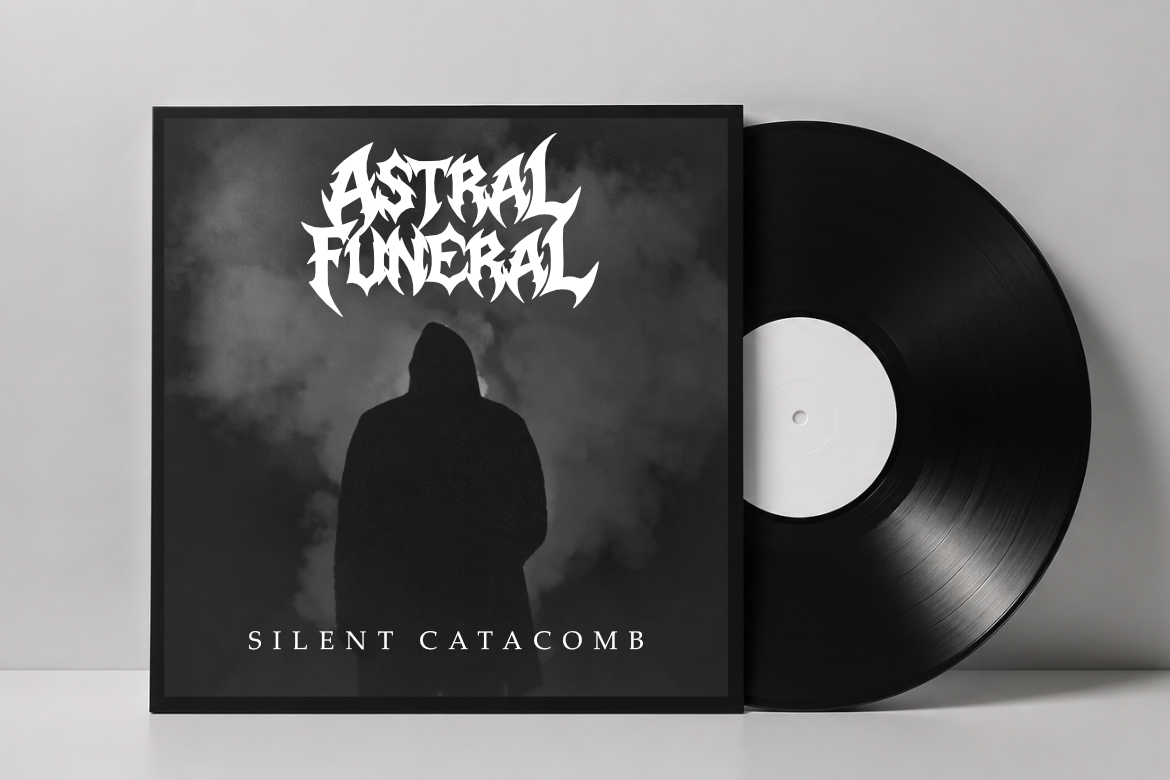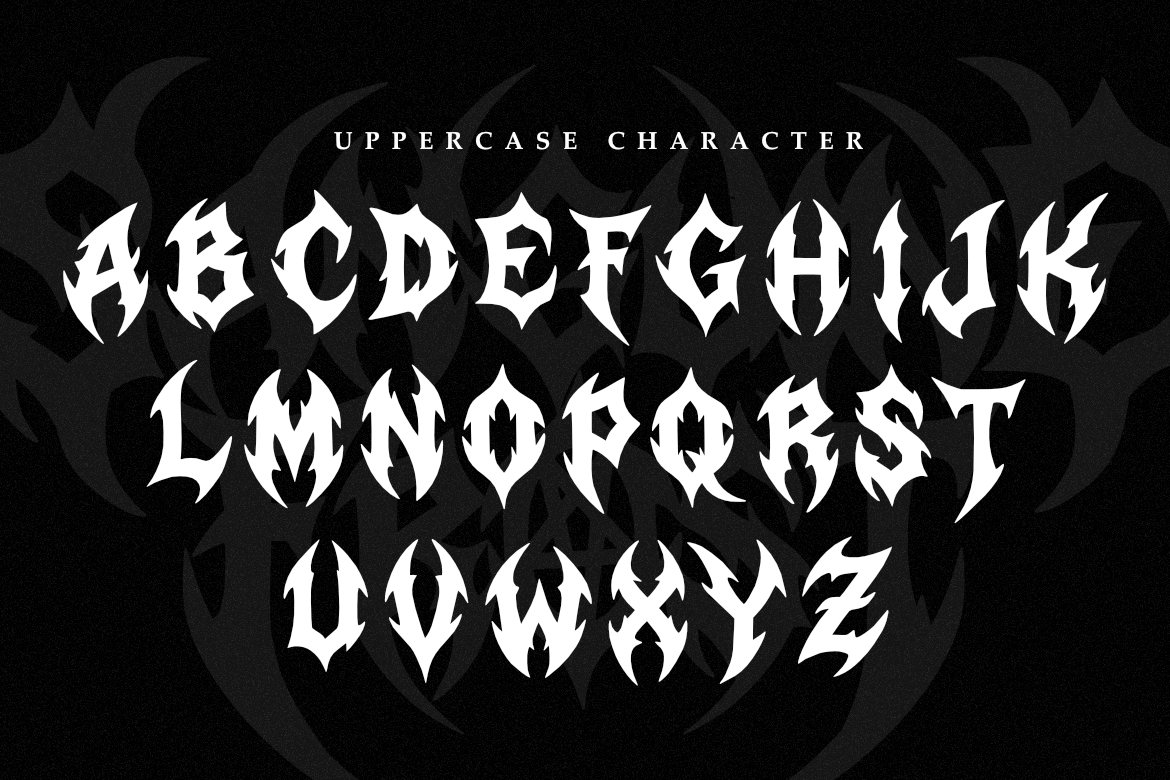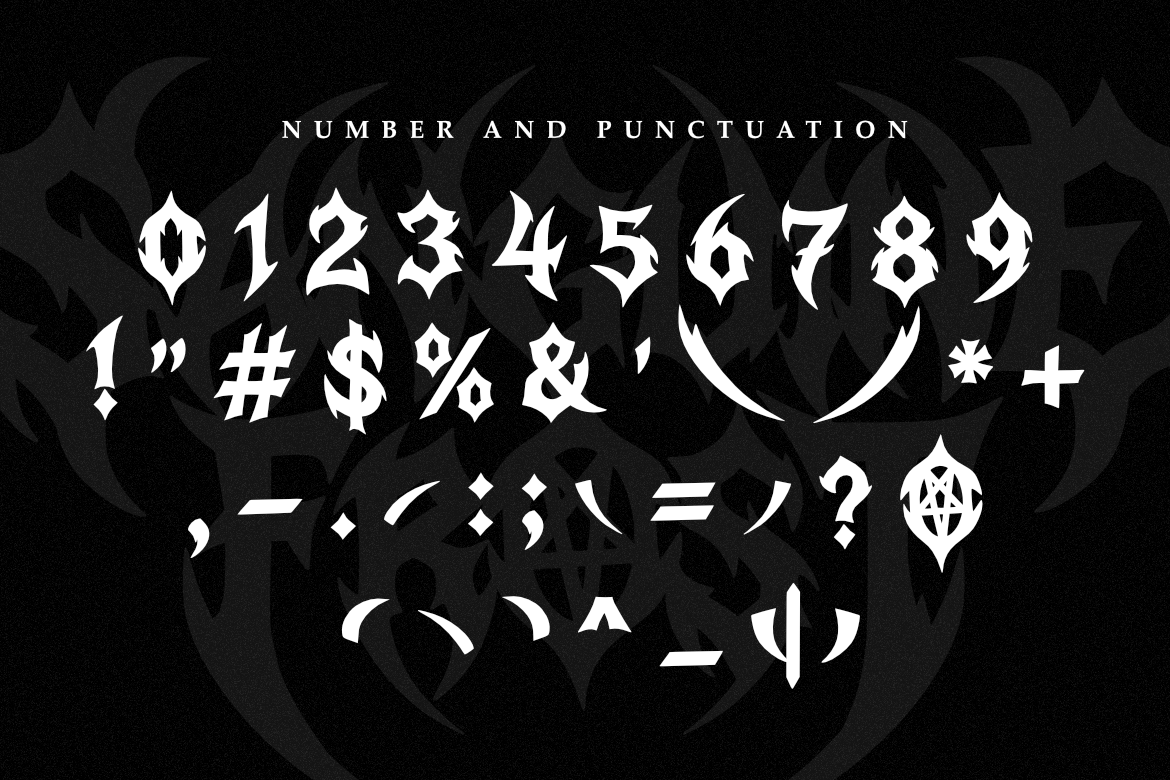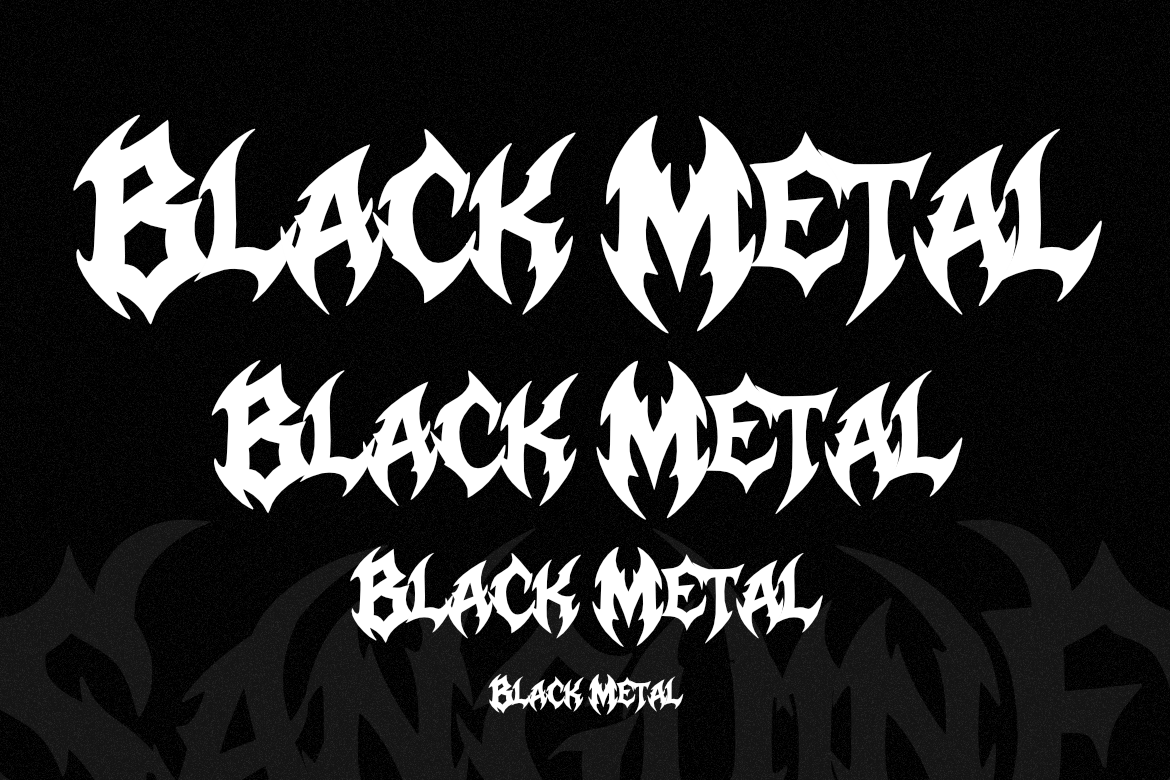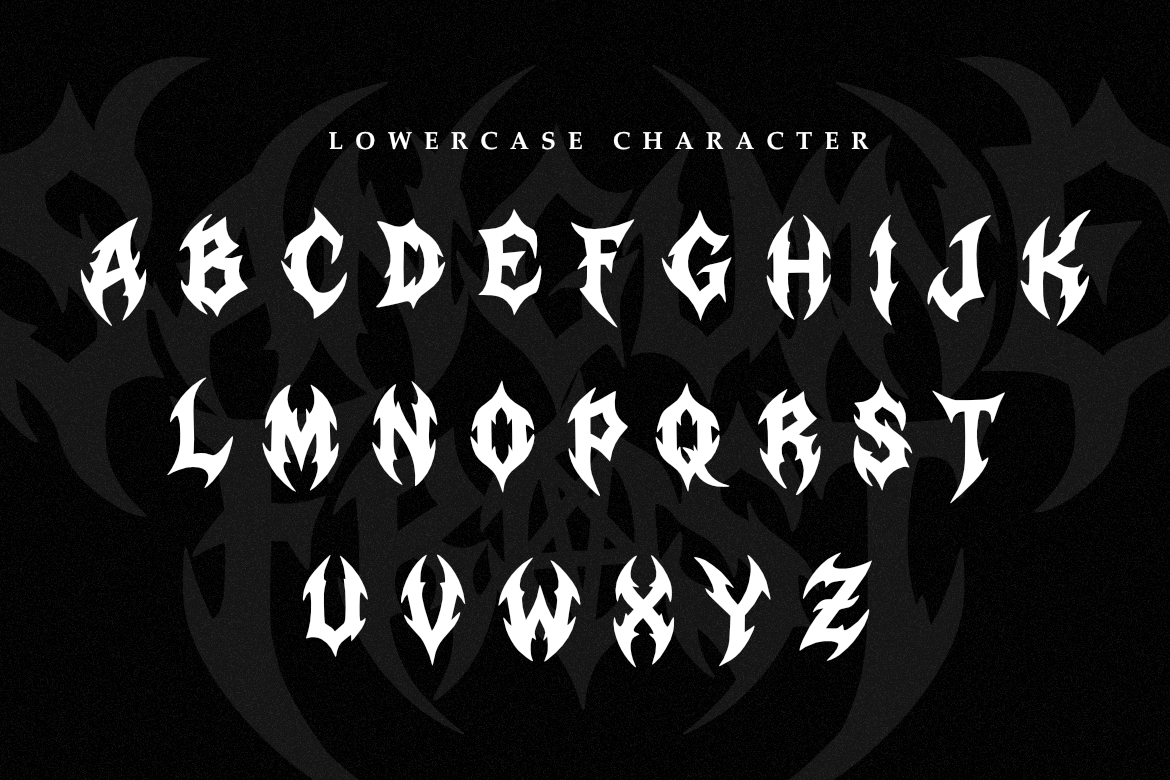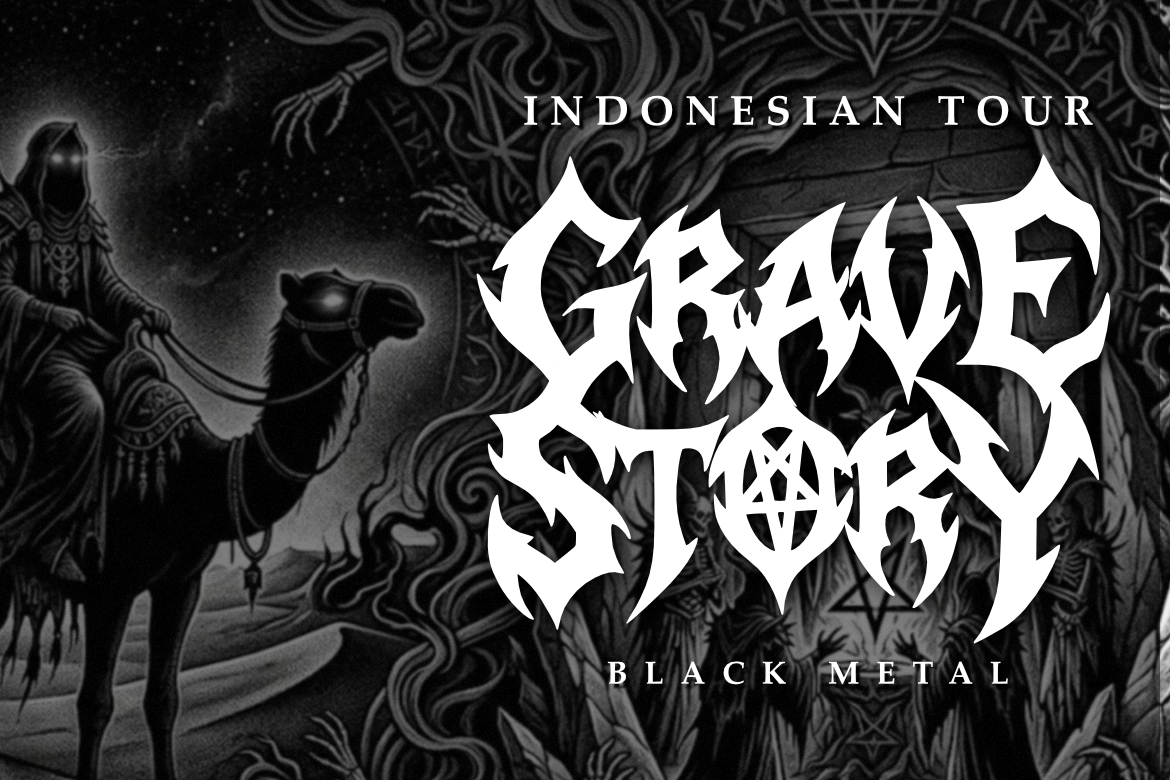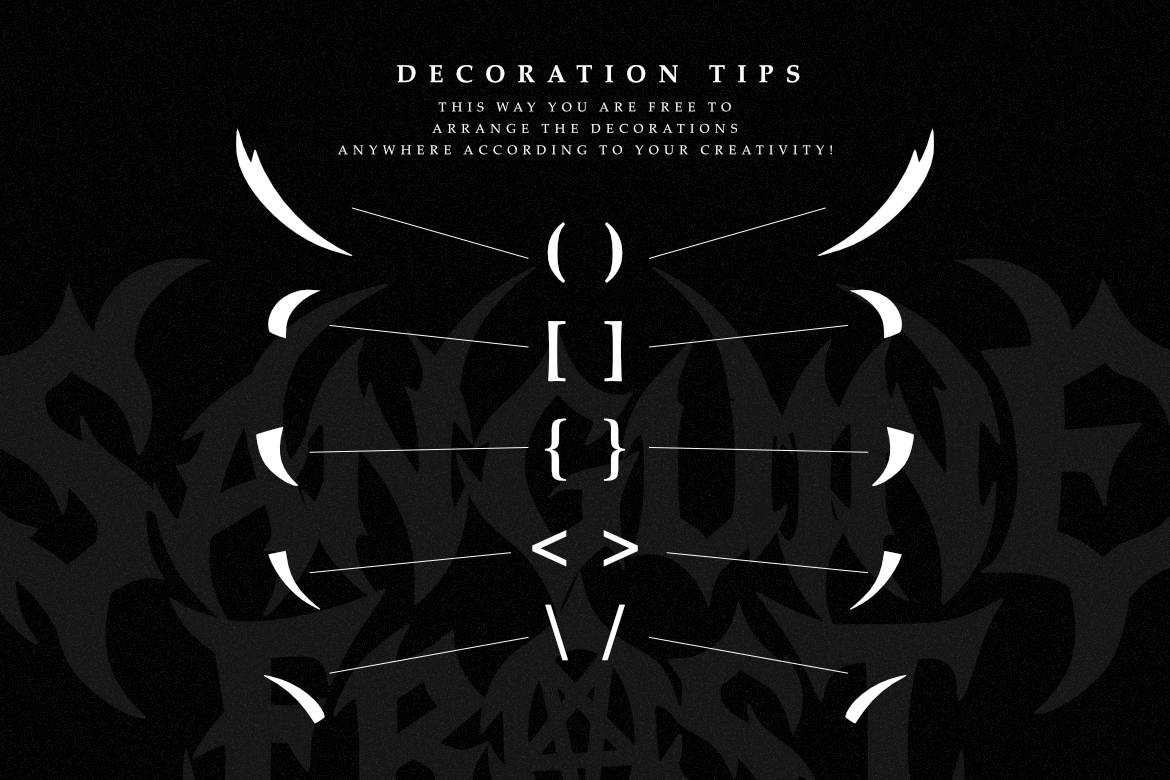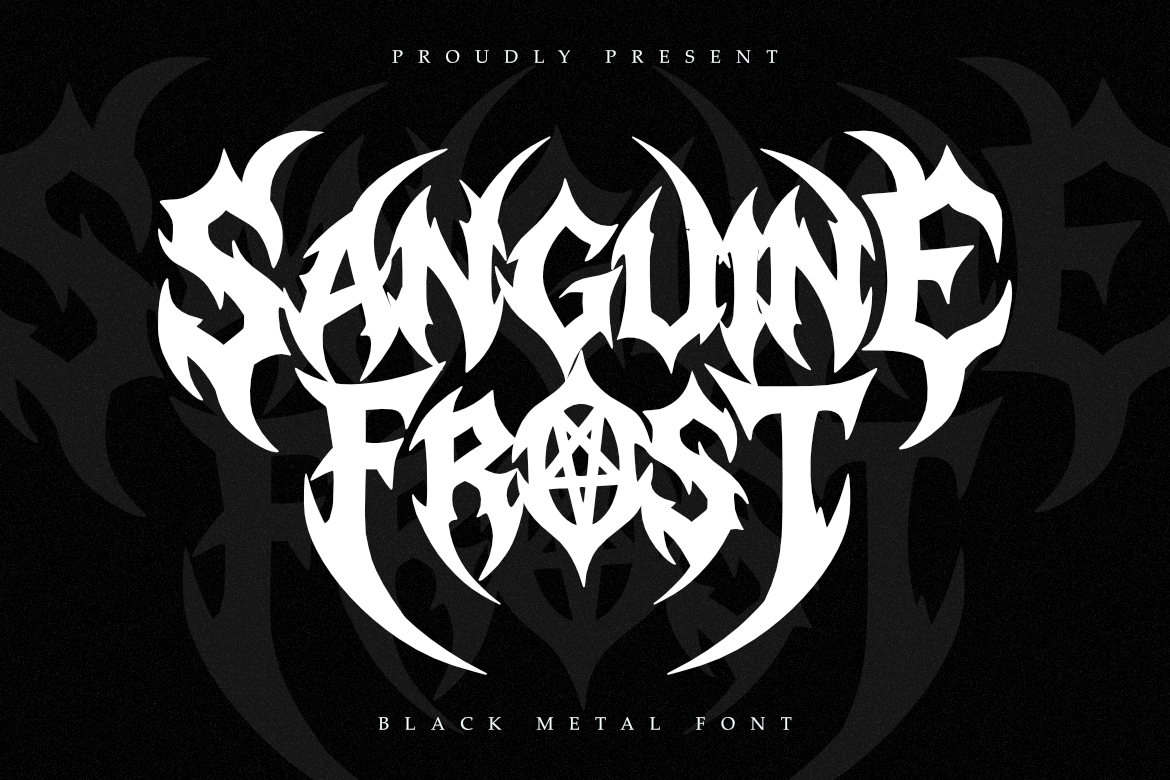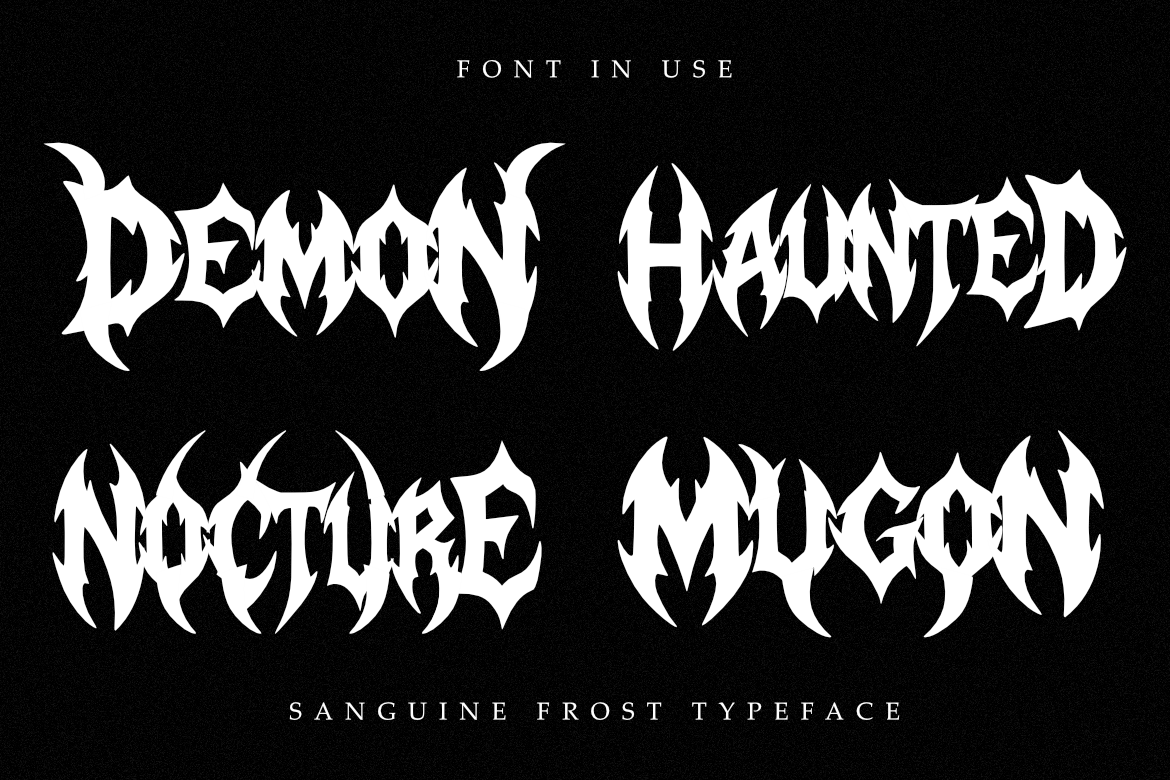
Sanguine Frost - Black Metal Font
Sanguine Frost - Black Metal Font or Band Logo, Album Cover, Merchandise Design
Sanguine Frost is a brutal professional font designed for sophisticated branding and high-end extreme design projects.
Its sharp and aggressive letterforms provide a contemporary yet timeless feel, striking a perfect balance between occult imagery and modern metal aesthetics. This font embodies the essence of modern minimalism while maintaining a sense of raw power and refinement, making it perfect for logos, corporate materials, and professional presentations within the music and streetwear industry.
Whether you are crafting a corporate identity for an extreme label, designing sleek business cards for a tattoo studio, or working on editorial content, Sanguine Frost ensures your work exudes professionalism and style. Ideal for branding, business logos, websites, and more, its refined design effortlessly elevates your project.
Inspired by the vibrant energy of the underground scene and cold atmospheric darkness, Sanguine Frost offers versatility and adaptability for various design applications, helping you communicate a polished and modern aesthetic that leaves a lasting impression.
- Bold, sharp, and aggressive black metal style.
- Intricate spiky letterforms with occult-inspired silhouettes.
- Perfect for high-end branding, and logos.
- Designed for maximum visual impact in display use.